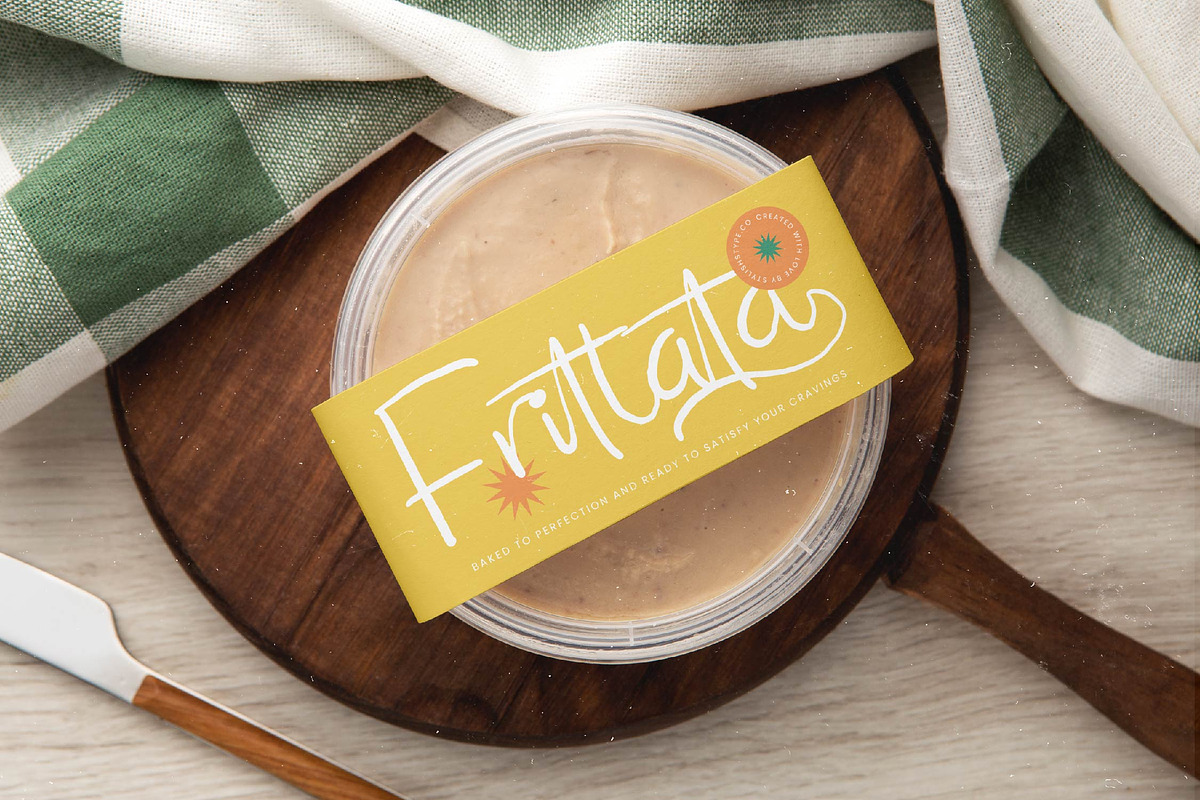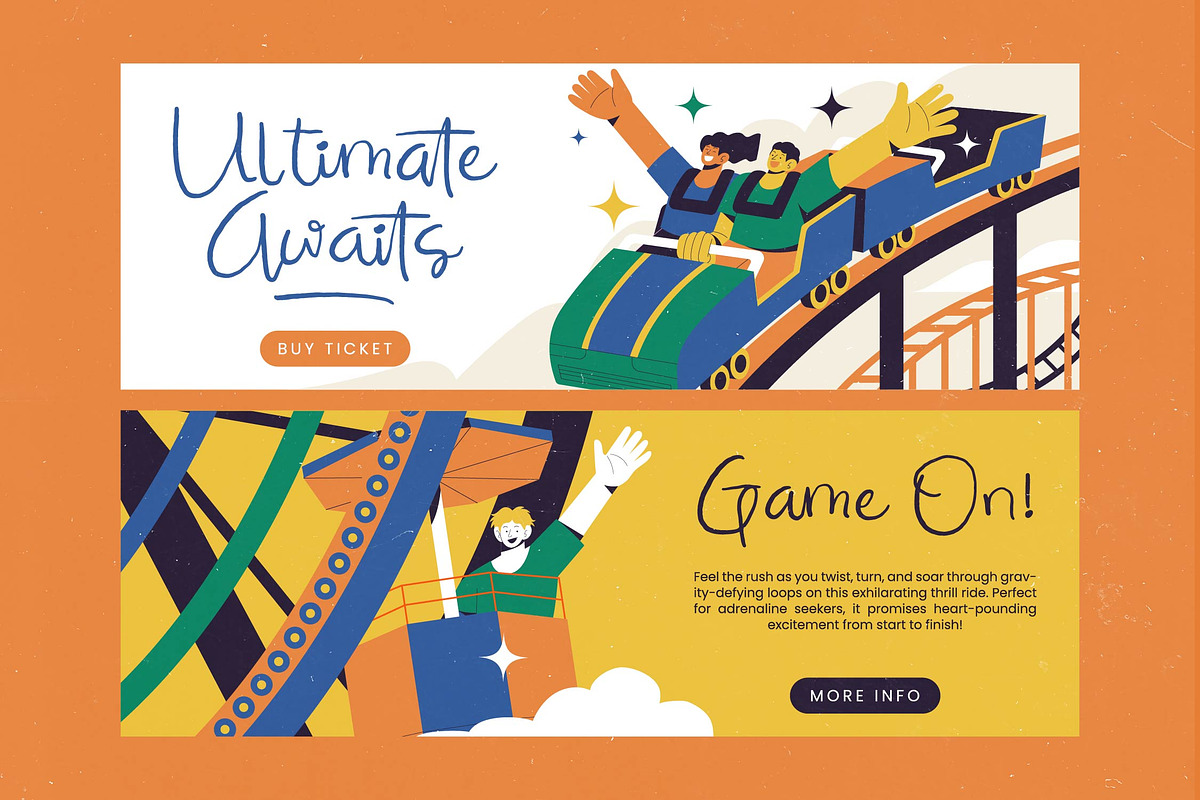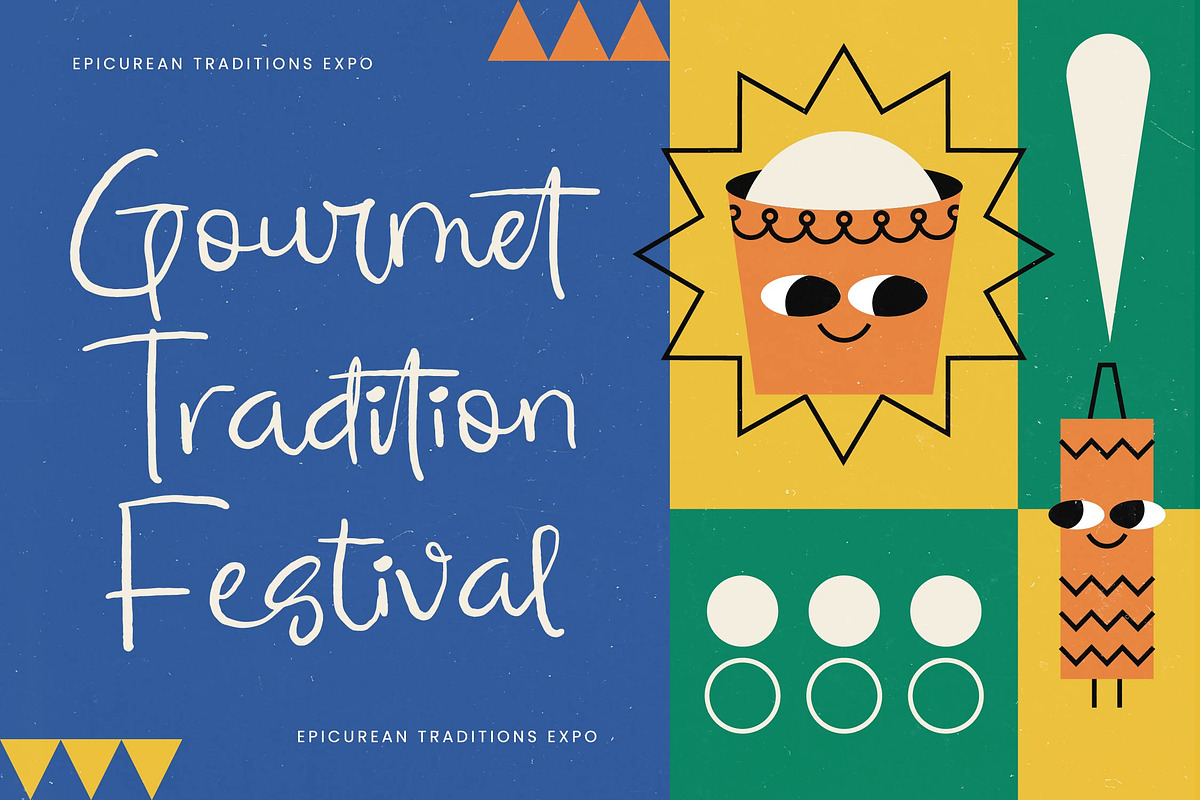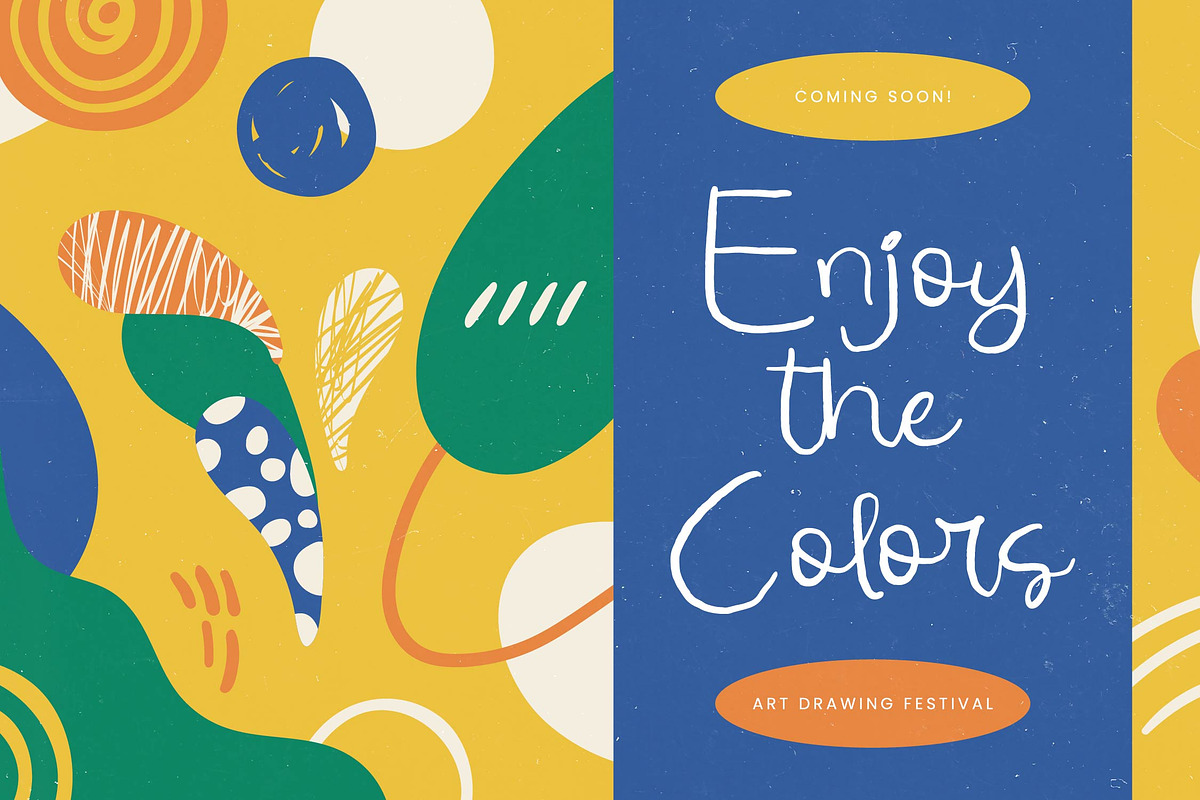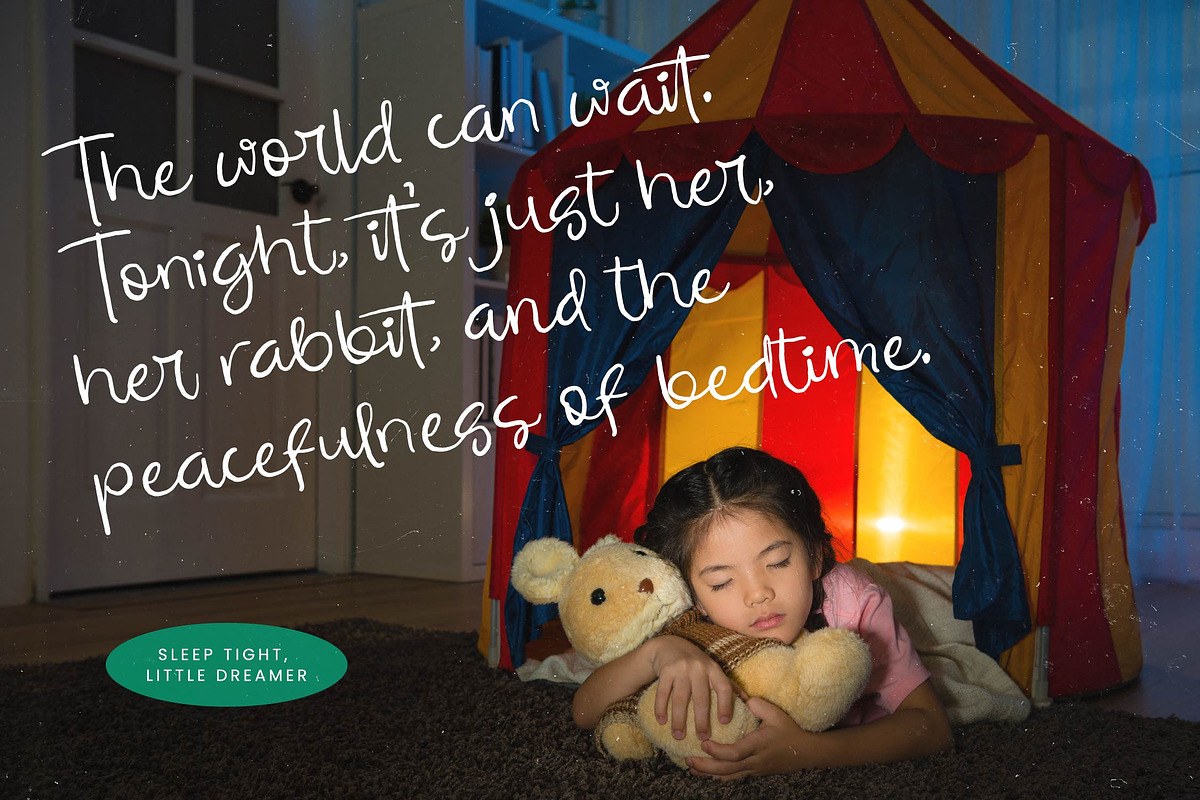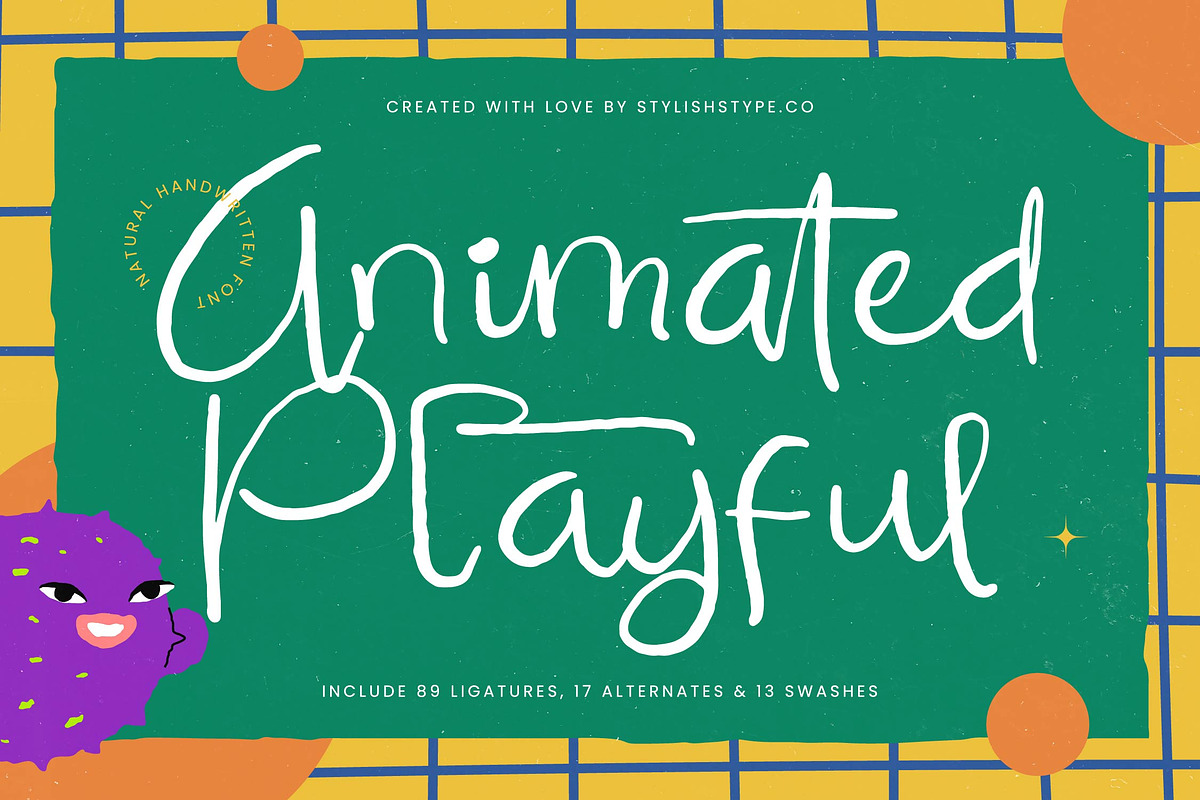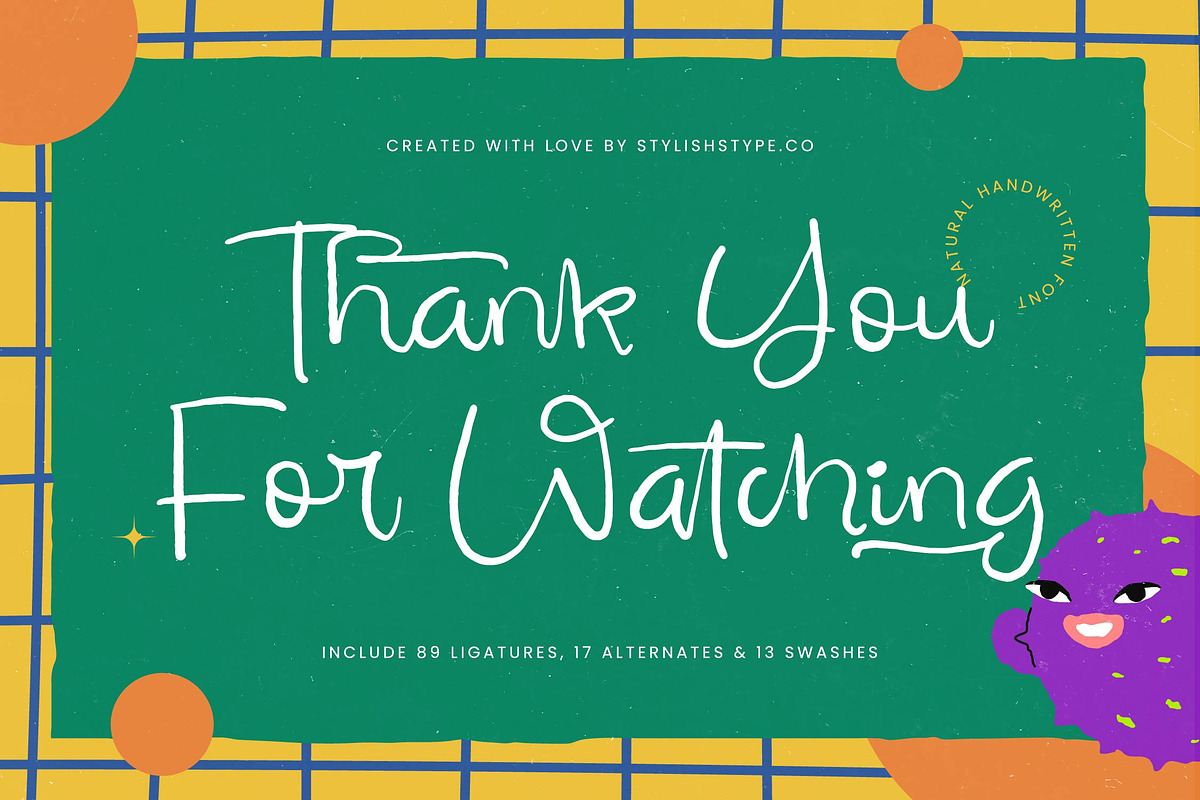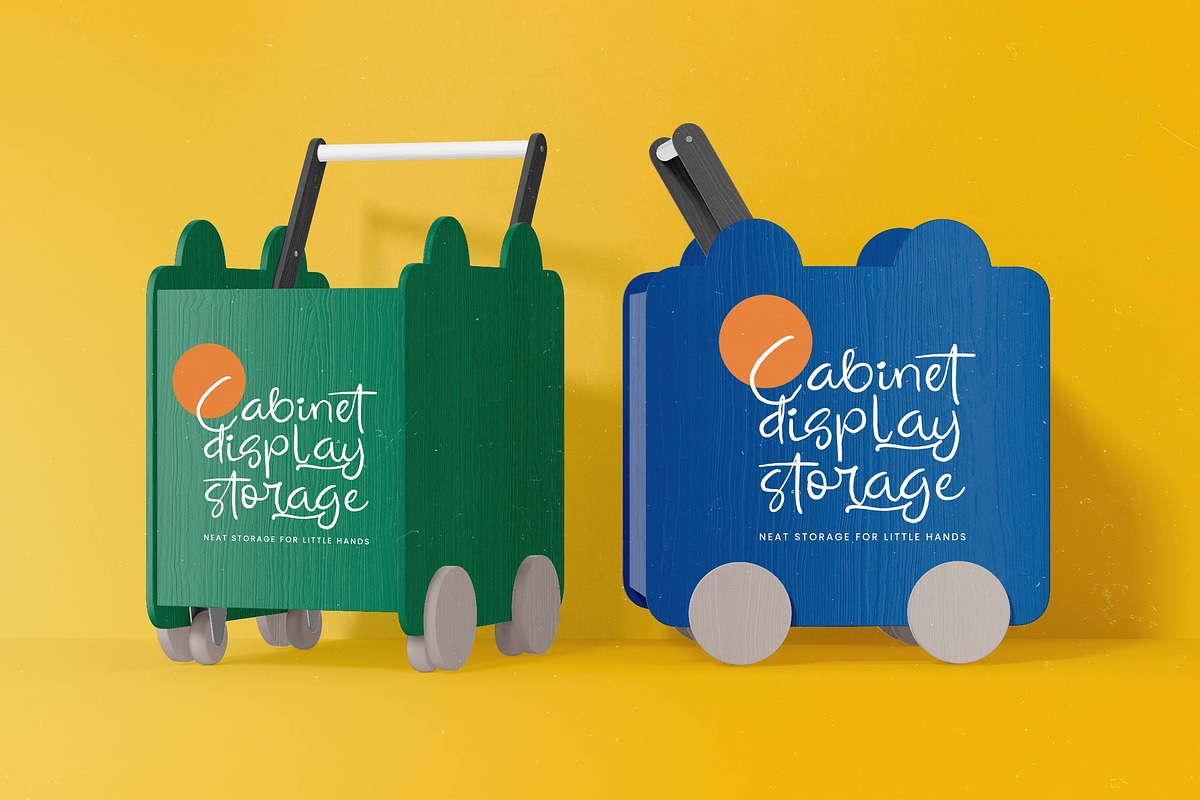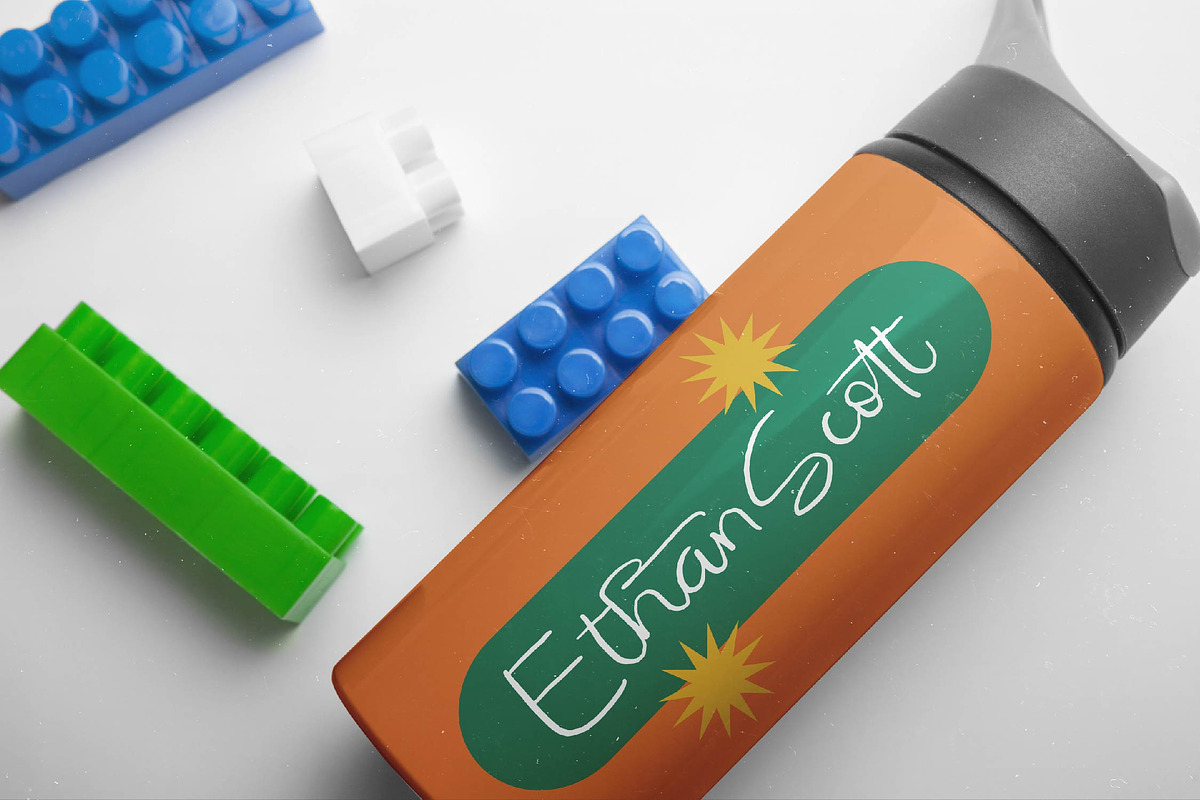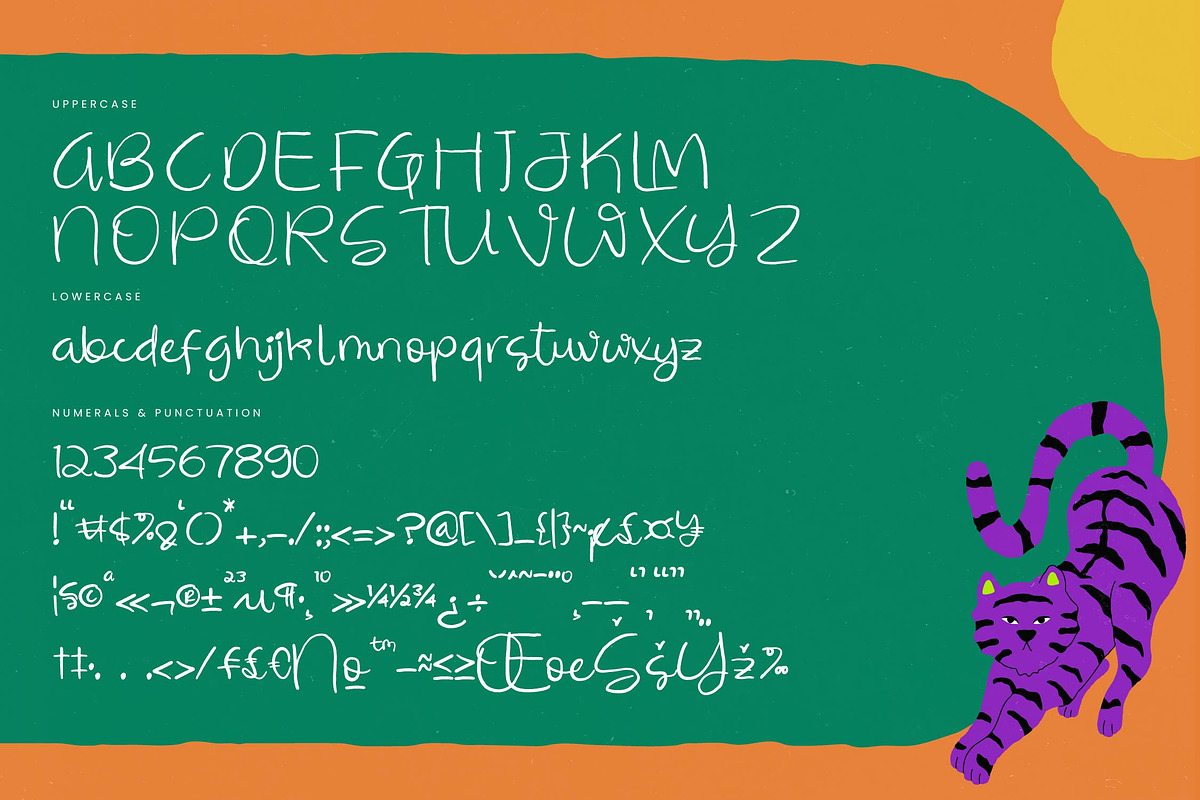
Animated Playful Natural Handwritten
Animated Playful - Natural Handwritten Font , from Stylishtype.Co , Suitable for any projects such as: logos, branding projects, homeware designs, product packaging, mugs, quotes, posters, shopping bags, t-shirts, book covers, name card, invitation cards, greeting cards, label, photography, watermark, special events, and all your other luxury and beautiful projects that need a Luxury Script taste.
- 89 Ligature 17 Alternates & 13 Swashes